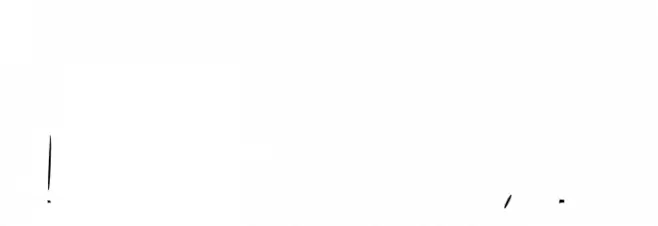
Rails Font
Rails Description
This font features a unique and artistic design with elongated, thin strokes that give it a whimsical and playful appearance. The characters are tall and narrow, with a slight irregularity that adds a hand-drawn feel. The uppercase letters are particularly striking, with exaggerated vertical lines and minimal horizontal strokes, creating a sense of movement and energy. The lowercase letters maintain the same thin, elongated style, ensuring consistency across the typeface. The font's overall aesthetic is modern and creative, making it suitable for projects that require a distinctive and eye-catching look.
A whimsical, elongated font with thin strokes and a hand-drawn feel from Uncategorized fonts.
- Proposed Projects: Ideal for creative projects, children's books, artistic posters, and unique branding.